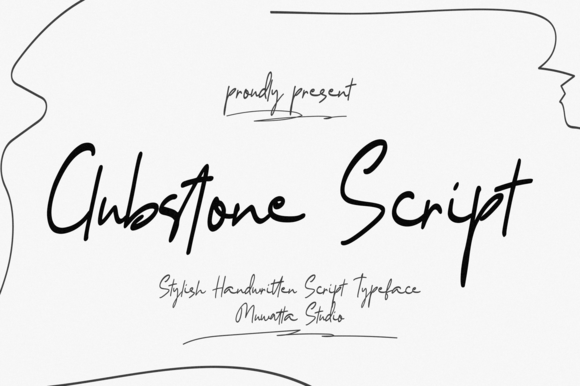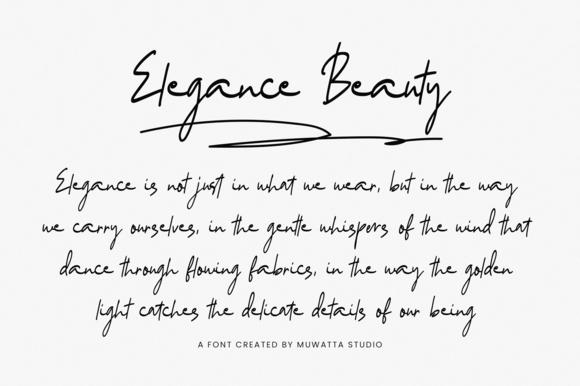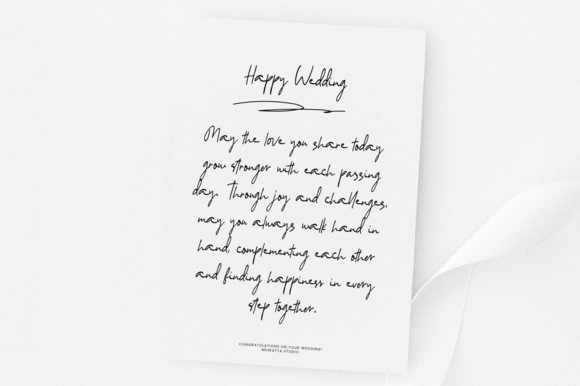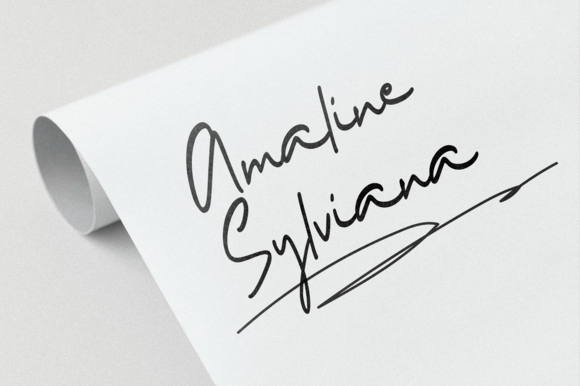
Clubstone Font
About the Clubstone Font
Add a touch of class to your work with the Clubstone Font, a truly exceptional typeface. Immerse yourself in the exquisite elegance of Club Stone – a fusion of artistry and innovation in the realm of typography. This handcrafted font series encapsulates an intimate charm, promising an enticing, playful spin and sophistication to ascertain your design assignments stand out. Ideal for individuals desiring to infuse identifiable personality into their creative projects, Club Stone represents the perfect mixture of whimsy, grace and timeless elegance.
Clubstone’s playful elegance makes it ideal for headlines, logos, short-form text in packaging design, and posters where its unique charm can shine. Avoid using it for large blocks of body text or UI elements; its decorative nature compromises readability in extended use.
Its personality is best described as sophisticated yet whimsical. Brands targeting a younger, discerning audience, or those focused on luxury goods with a touch of quirkiness, would find Clubstone a strong fit.
Pairing Clubstone with a clean sans-serif like Open Sans for body text creates a balanced contrast, while a classic serif such as Garamond adds a layer of timeless sophistication. For a more modern feel, consider pairing it with a geometric sans-serif like Montserrat.